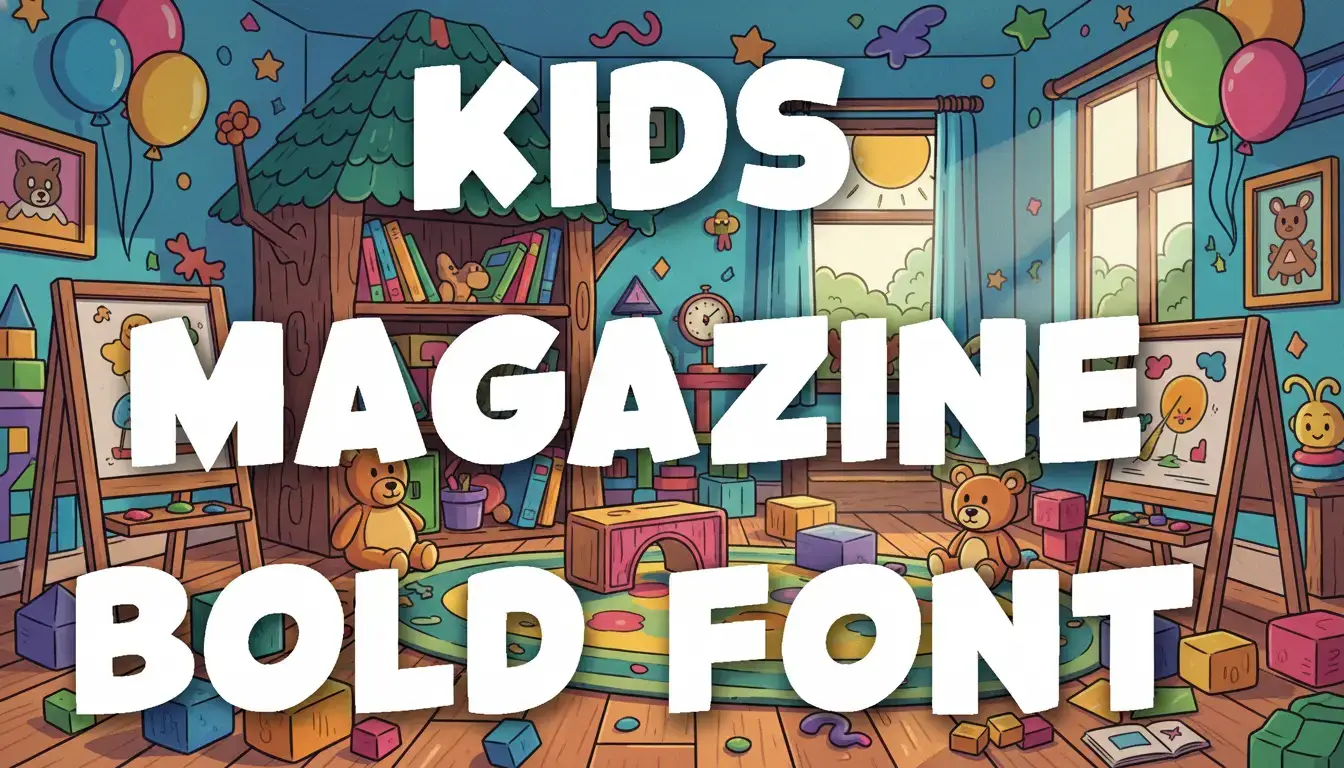
KIDS MAGAZINE BOLD FONT
KIDS MAGAZINE BOLD
KIDS MAGAZINE BOLD is a comic font created by IMAGEX. It has a cheerful, hand-drawn look that makes people smile before they even read the words. You can download it for free and test it with your own words in the preview above.
- Designer: IMAGEX
- Category: Comic font
- Glyphs: 238
What You Can Type With KIDS MAGAZINE BOLD
KIDS MAGAZINE BOLD covers the full alphabet in upper and lowercase, plus all ten numbers, so you can set names, dates and prices without switching fonts. Common punctuation such as &, !, ? and @ is included as well. It also has the accented letters you need for Spanish, French, German, Portuguese and Italian.
Where KIDS MAGAZINE BOLD Works Best
Designers usually reach for fonts like KIDS MAGAZINE BOLD when they're making comic strips, speech bubbles and playful headings. Cartoon fonts are great for short, fun lines. If you place it over a busy photo, add a thick outline or a drop shadow so it stays readable.
Does KIDS MAGAZINE BOLD support accented letters?
Yes. KIDS MAGAZINE BOLD includes the accented letters needed for Spanish, French, German, Portuguese and Italian, so it works for more than just English.